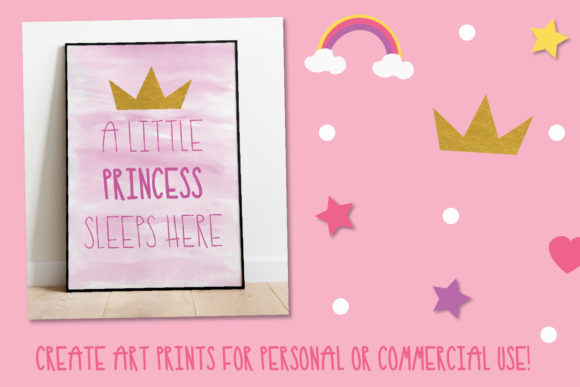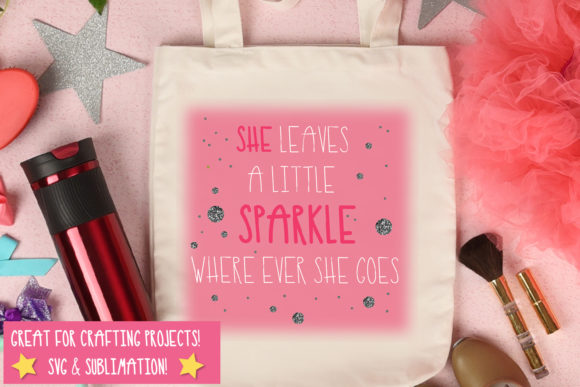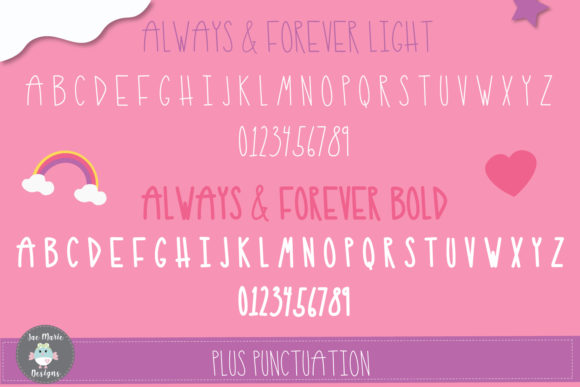
Introducing the Always and Forever Font: A Perfect Match for Cute Nursery Art and Whimsical Graphics
Are you a designer or crafter looking for a font that can add a touch of sweetness and playfulness to your creations? Look no further than the Always and Forever font! This charming font is specifically designed with cute nursery art and whimsical graphics in mind, making it the perfect choice for projects that require a dash of whimsy and fun.
A Font Designed for Cute Nursery Art and Whimsical Graphics
The Always and Forever font is carefully crafted to bring a sense of innocence and playfulness to your designs. Its unique and delicate shape makes it an ideal choice for creating adorable nursery art, children’s book illustrations, and other whimsical graphics. Whether you’re designing for a client or creating something for your own personal use, this font is sure to delight.
A Versatile Font with Two Styles
One of the best things about the Always and Forever font is that it comes in two styles: bold and light. The bold version is perfect for making a statement, while the light version provides a more subtle and delicate touch. The two styles complement each other beautifully, allowing you to create stunning designs that are both visually appealing and harmonious.
With the Always and Forever font, the design possibilities are endless! Here are just a few ideas to get you started:
- Design adorable nursery art, including wall art, decals, and other decorative items
- Create whimsical graphics for children’s books, magazines, and other publications
- Make custom greeting cards, invitations, and other stationery items
- Design cute and playful logos and branding materials for businesses and products
- Create beautiful and unique digital papers and scrapbooking kits
Why Choose the Always and Forever Font?
So why choose the Always and Forever font for your design projects? Here are just a few reasons:
- Unique and eye-catching design: The Always and Forever font has a unique and eye-catching design that is sure to stand out from the crowd.
- Highly versatile: The font comes in two styles (bold and light), making it highly versatile and adaptable to different design projects.
- Easy to read: Despite its playful and whimsical design, the Always and Forever font is easy to read, even at small sizes.
- Perfect for designers and crafters: Whether you’re a professional designer or a crafter, the Always and Forever font is a great choice for anyone looking to add a touch of whimsy and fun to their designs.
Tips for Using the Always and Forever Font
Here are a few tips for using the Always and Forever font in your design projects:
- Pair with other fonts: The Always and Forever font pairs well with other fonts, especially those with a similar playful and whimsical feel.
- Use for headings and titles: The bold version of the font is perfect for headings and titles, while the light version is better suited for body text.
- Experiment with colors: The Always and Forever font looks great in a variety of colors, so don’t be afraid to experiment and find the perfect hue for your design.
In conclusion, the Always and Forever font is a beautiful and versatile font that is perfect for designers and crafters looking to add a touch of whimsy and fun to their creations. With its unique and eye-catching design, highly versatile styles, and easy-to-read format, this font is sure to become a favorite in your design arsenal. So why wait? Download the Always and Forever font today and start creating stunning designs that are sure to delight!